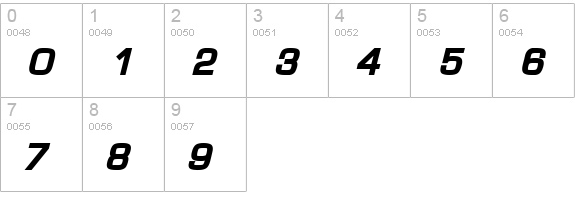
Waukegan LDO Black Oblique Font Details
Waukegan LDO Black Oblique is a maximum-weight, dramatic, italic variant in the Waukegan typeface family \xE2\x80\x94 well suited to maximum-impact headlines, posters, and packaging.
Introducing the captivating and versatile Waukegan LDO Black Oblique font, a true gem in the world of typography. This remarkable font effortlessly combines elegance with a touch of modernity, making it an ideal choice for a wide range of projects. Waukegan LDO Black Oblique font features a unique blend of boldness and slanted angles, creating a visually stunning and distinctive appearance. Its sleek and sophisticated design is perfect for creating eye-catching headlines, logos, posters, and more. But what truly sets Waukegan LDO Black Oblique font apart is its remarkable quality and attention to detail. Every curve and line has been meticulously crafted, resulting in a font that exudes professionalism and finesse. Its smooth and clean edges ensure a seamless reading experience, while its bold nature commands attention and leaves a lasting impression. One of the most remarkable aspects of Waukegan LDO Black Oblique font is that it is freely available to download at FontsMarket.com. Yes, you read that right – this exceptional font can be yours without any cost. FontsMarket.com prides itself on offering a vast collection of high-quality fonts that are accessible to all, and Waukegan LDO Black Oblique font is no exception. Whether you are a professional designer, a creative enthusiast, or simply someone looking to add a touch of elegance to your personal projects, Waukegan LDO Black Oblique font is a must-have. Its versatility and timeless appeal make it suitable for a wide range of applications, ensuring that your designs will always stand out from the crowd. So why wait? Head over to FontsMarket.com and unlock the potential of Waukegan LDO Black Oblique font. Embrace its free availability and let your creativity soar with this remarkable typographic masterpiece.